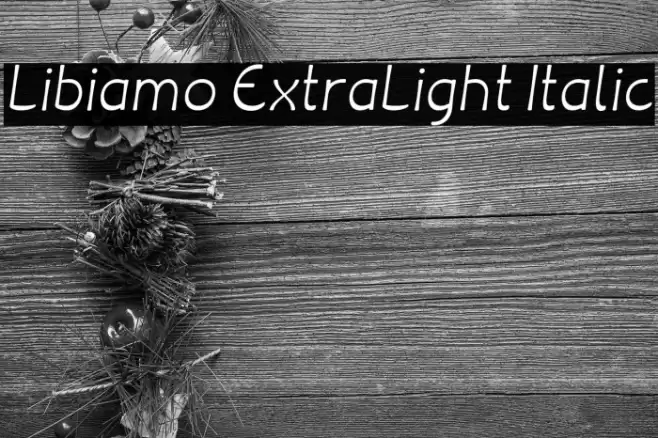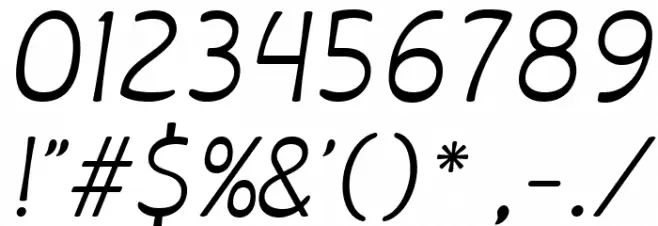
Libiamo ExtraLight Italic Font
Libiamo ExtraLight Italic Description
This font features a delicate and elegant style with a slight slant, giving it an italicized appearance. The characters are crafted with smooth, flowing lines that convey a sense of sophistication and modernity. The extra light weight of the strokes adds to its airy and graceful look, making it suitable for designs that require a touch of elegance. The font maintains a consistent and harmonious flow across both uppercase and lowercase letters, as well as numbers and special characters. Its clean and minimalistic design ensures readability while adding a subtle artistic flair.
A delicate, extra light italic font with smooth, flowing lines from Uncategorized fonts.
- Proposed Projects: Ideal for wedding invitations, elegant branding, fashion magazines, and upscale product packaging.
- Use Case: Headlines, Logos, Invitations